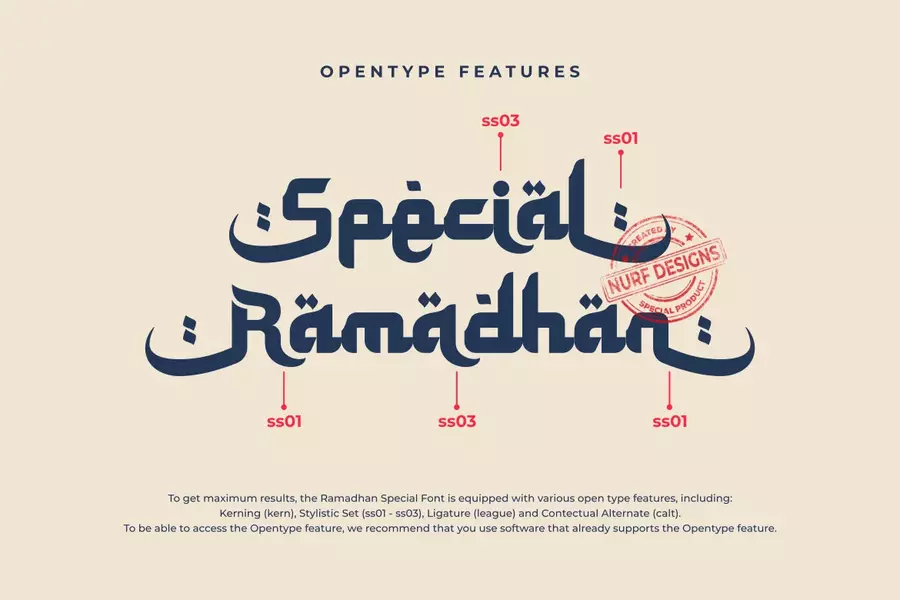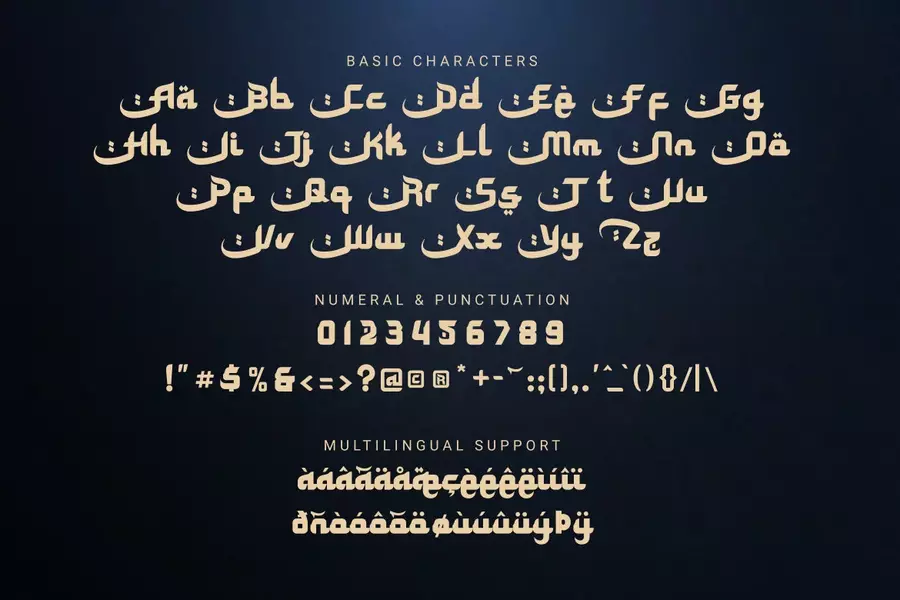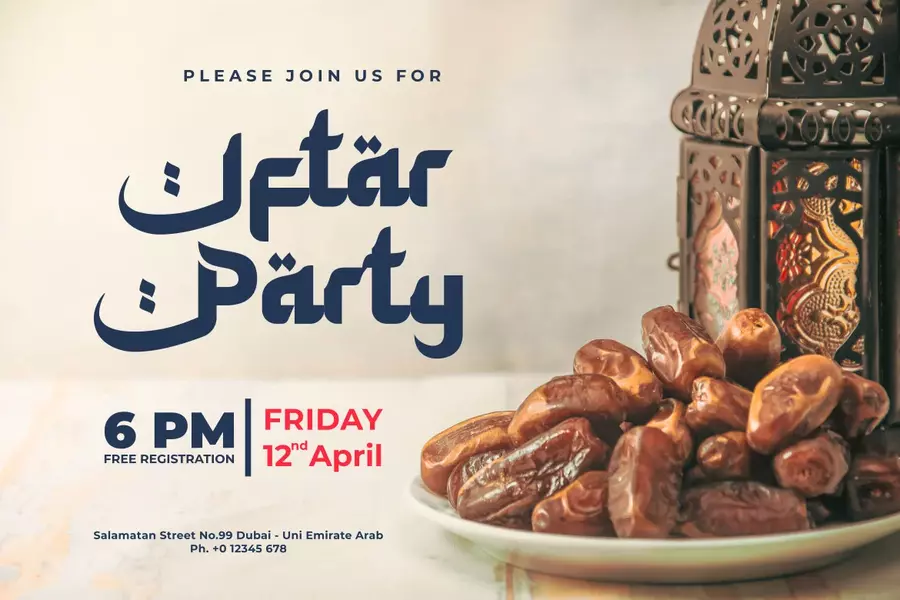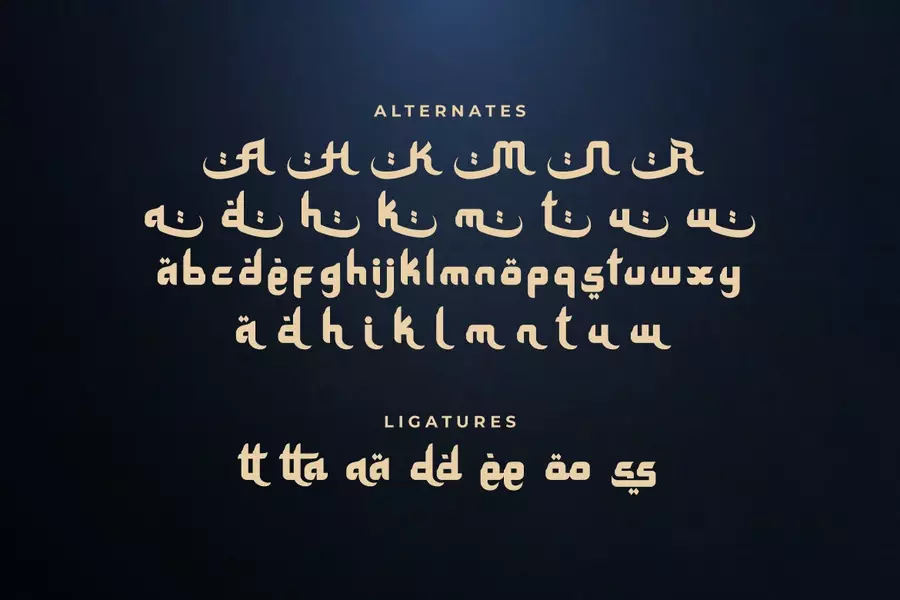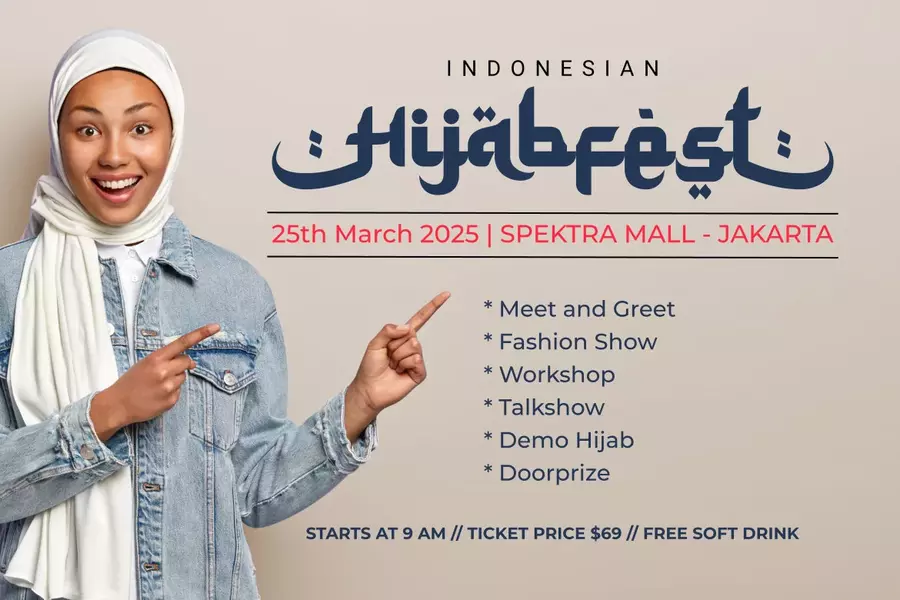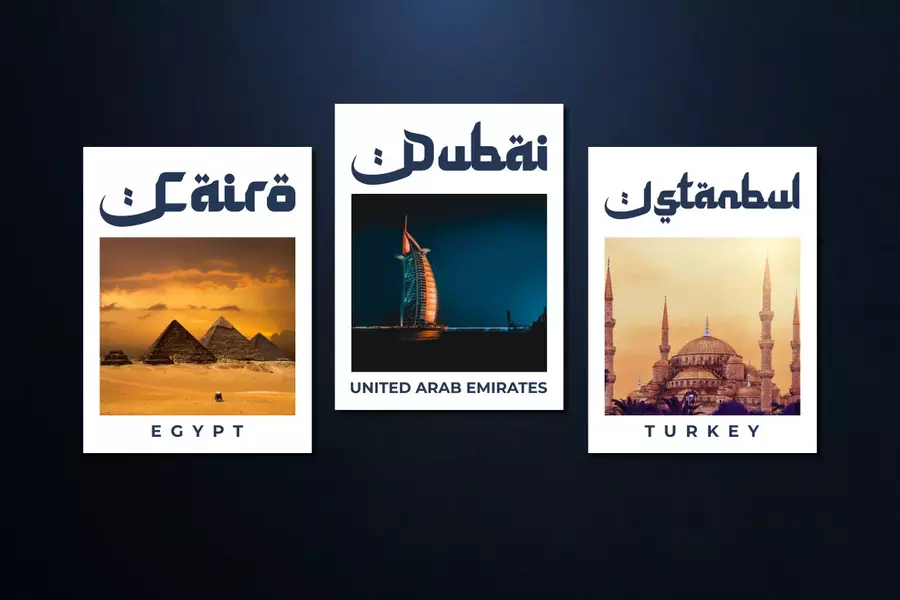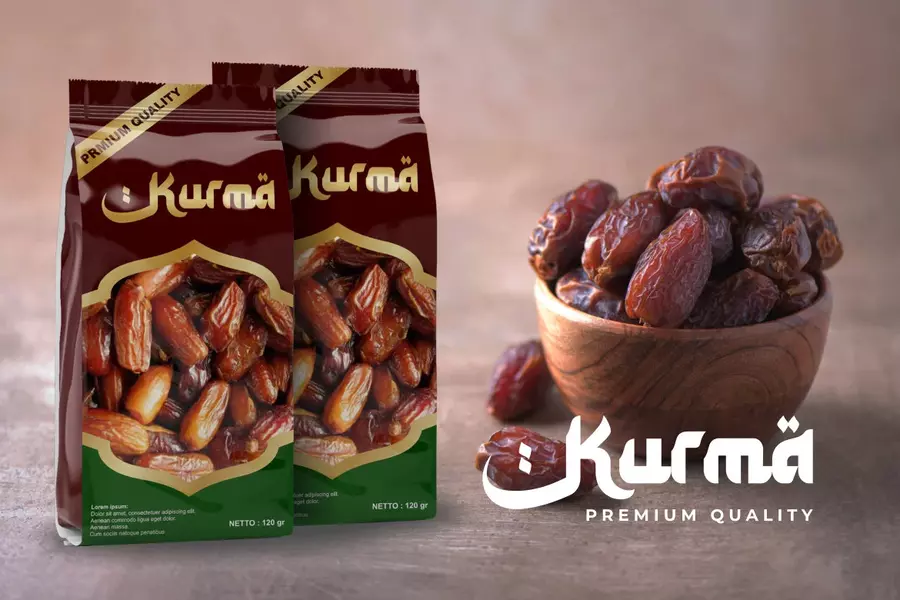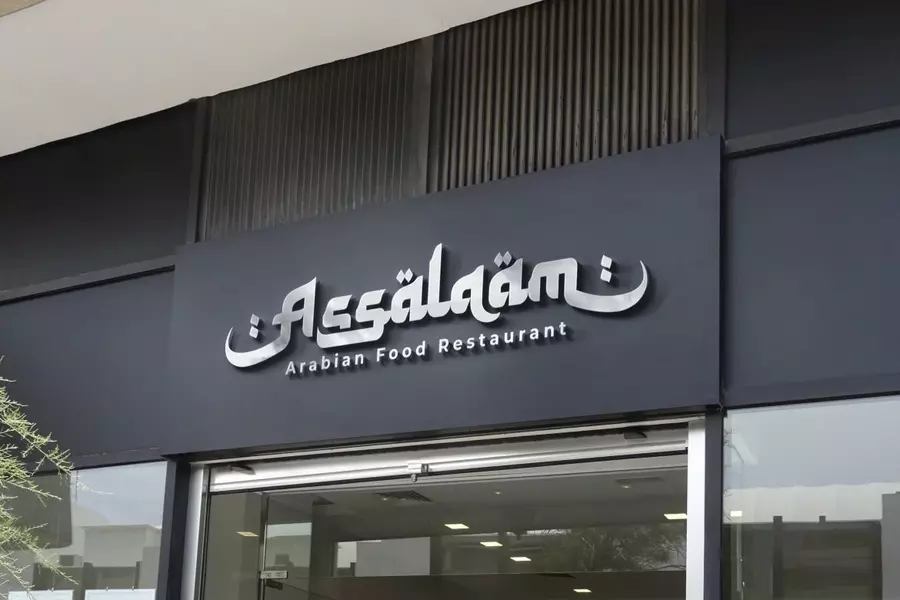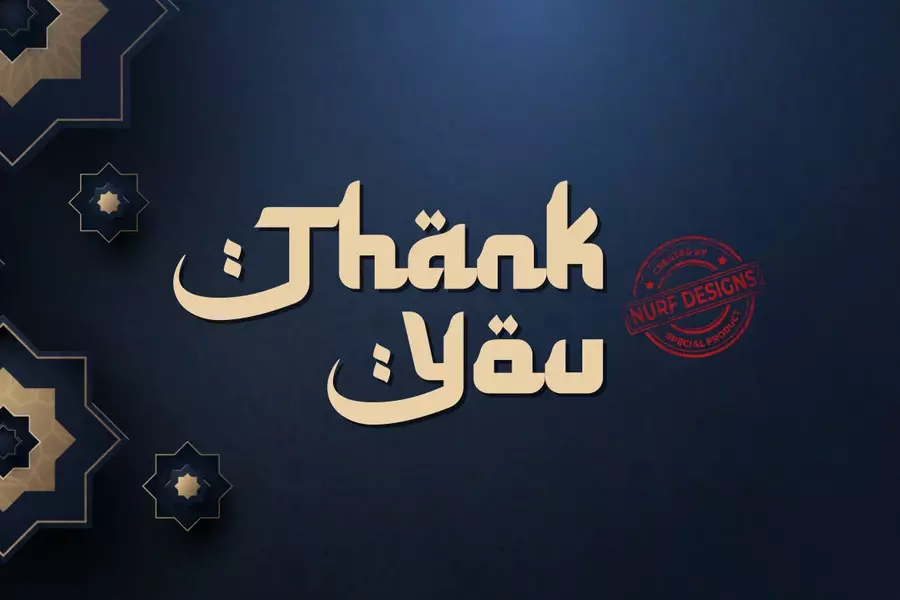
Special Ramadhan – Display Font with Arabic Style
Special Ramadhan is a display font in Arabic style. You will get an Arabic feel to every text that uses this font. It’s the perfect font for any design projects that require a Middle Eastern aesthetic.